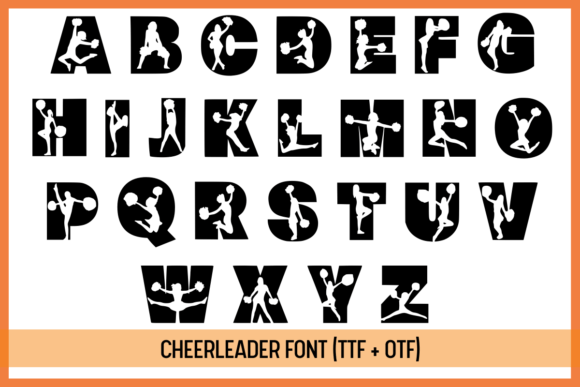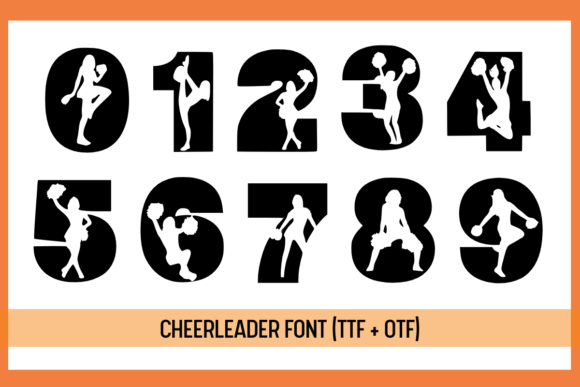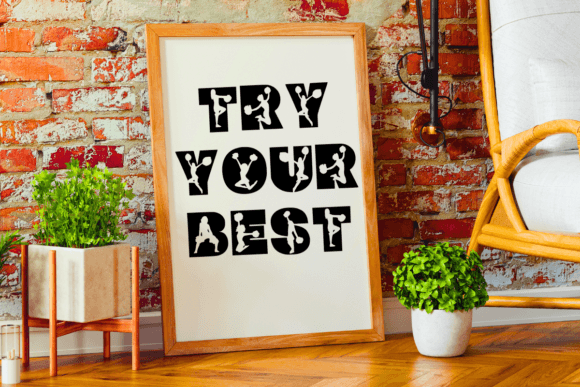
Cheerleader Font
Cheerleader is a fun and lively font that’s perfect for adding a bold touch to your designs. Each letter is filled with energetic cheerleader silhouettes, making it playful and eye-catching. It’s a great choice for posters, banners, and any project that needs a burst of cheer!